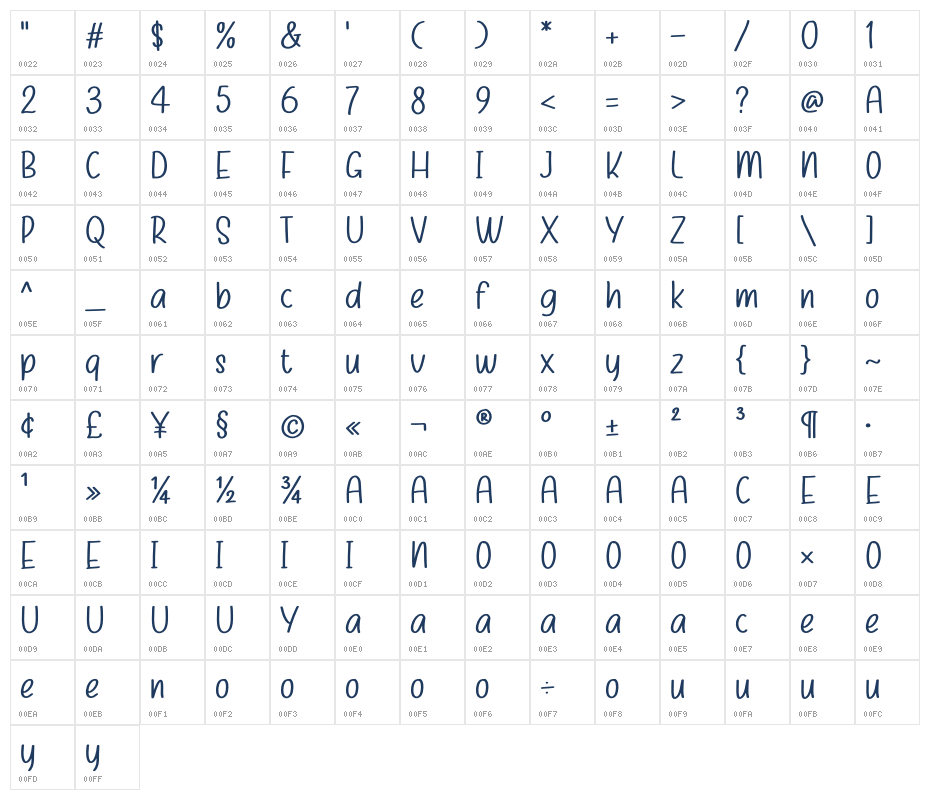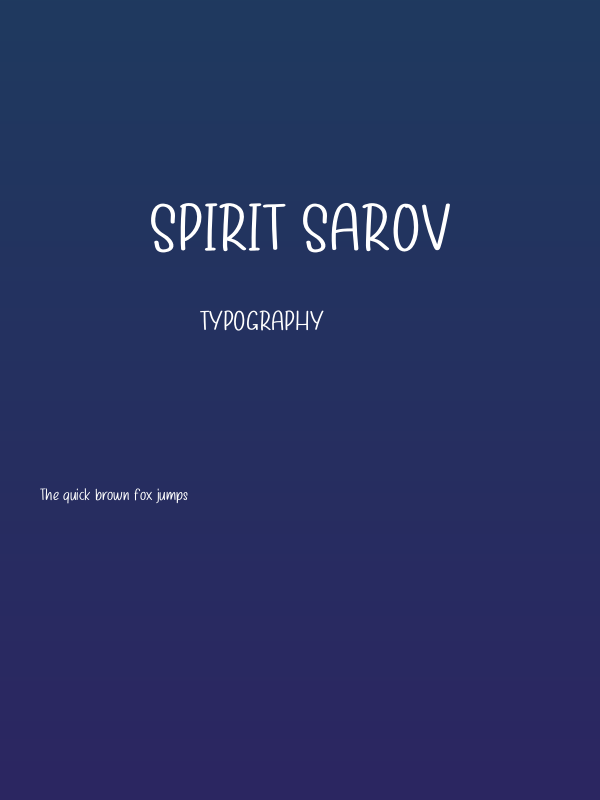
Spirit Sarov Font
Spirit Sarov Description
A playful, handwritten style font with rounded, casual letterforms.
Hello Good Studio
| Overall Style | Casual, Playful, Handwritten |
| Use Case | Children's books, casual branding, invitations, informal signage. |